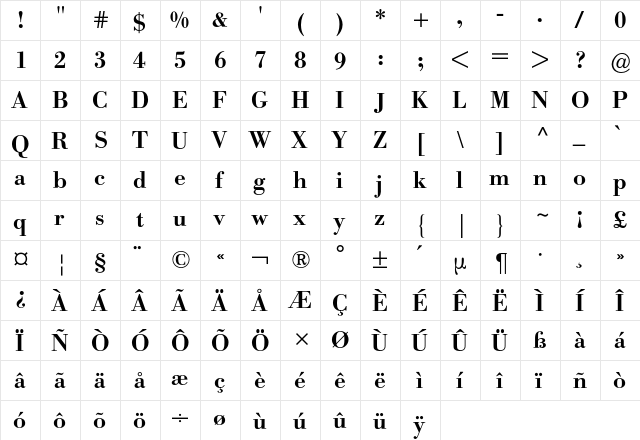
Bodoni Berthold BQ Regular Font Preview
Bodoni Berthold BQ Regular
Bodoni Berthold BQ Regular Font Details
Design Context for Bodoni Berthold BQ Typeface
Bodoni Berthold BQ is a composed and adaptable typeface that performs quietly and consistently across a wide range of design contexts.